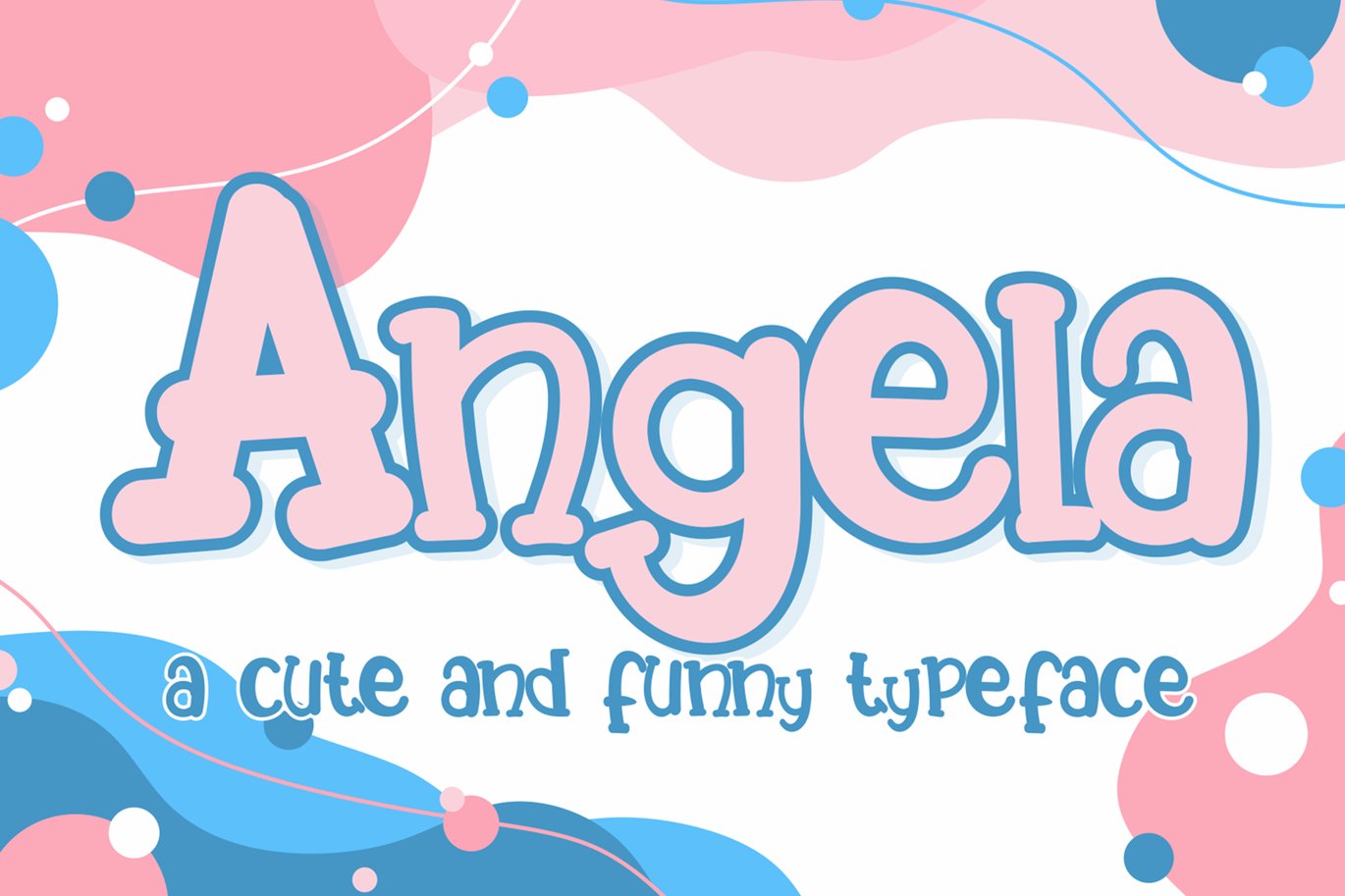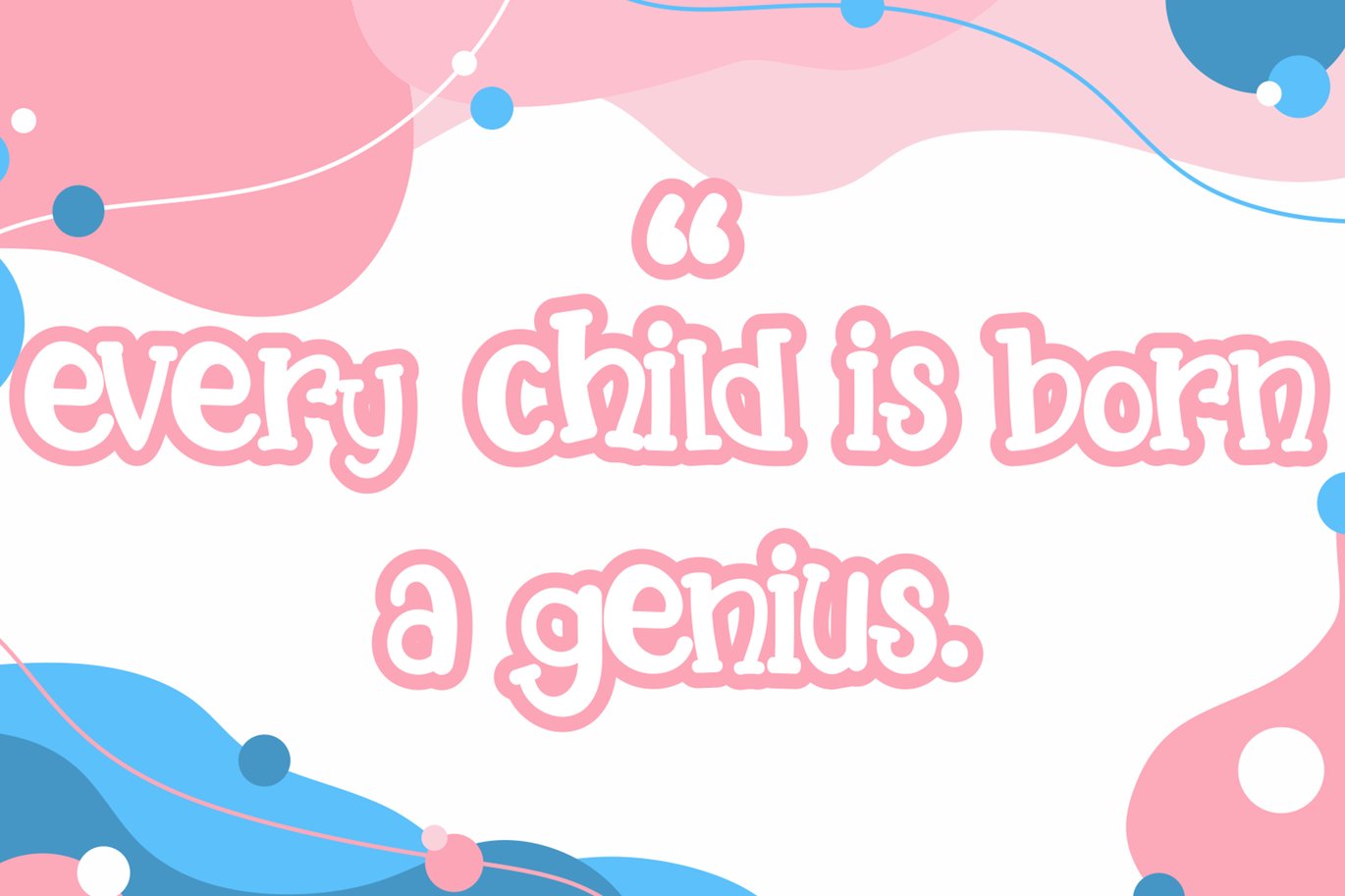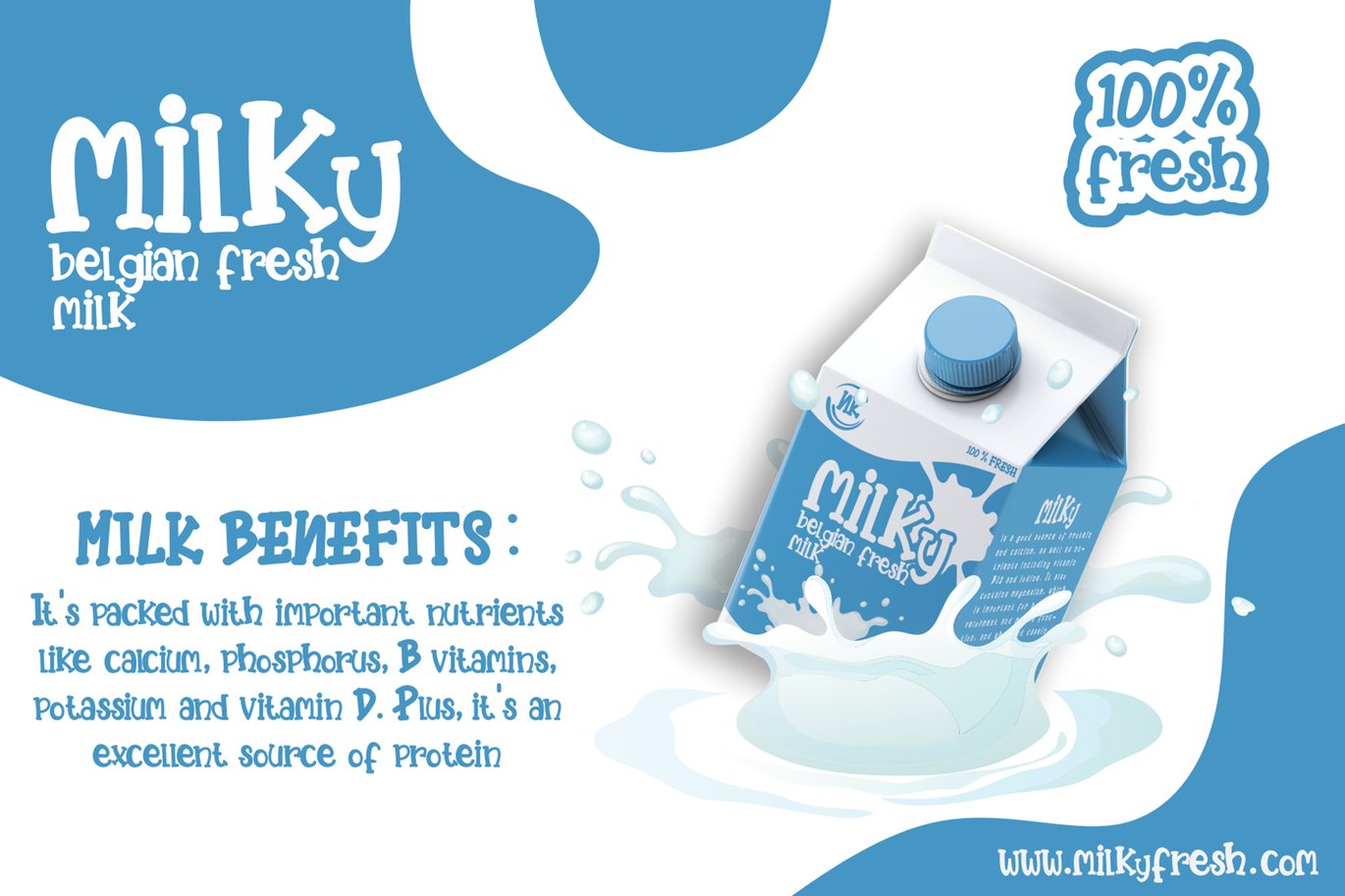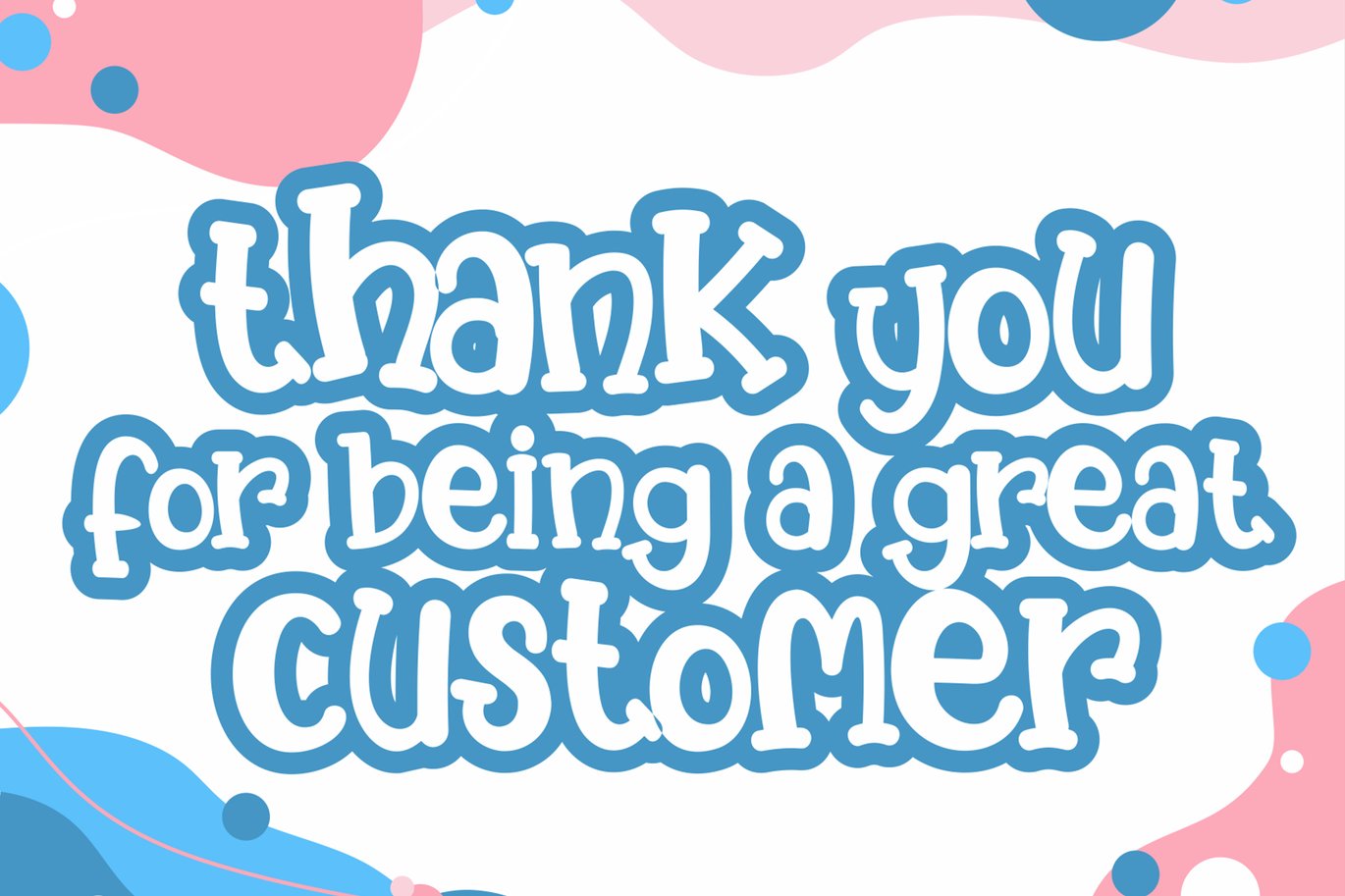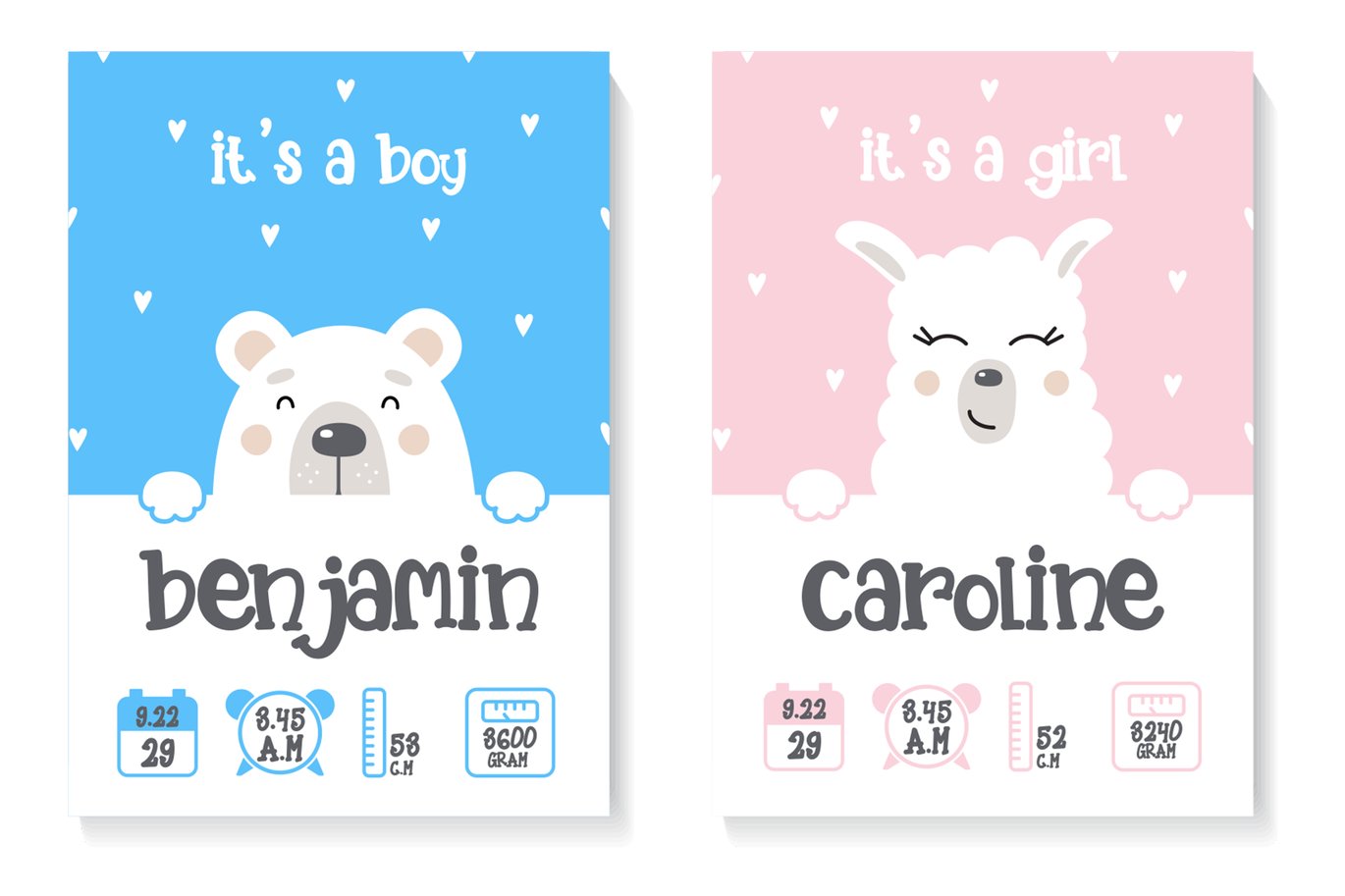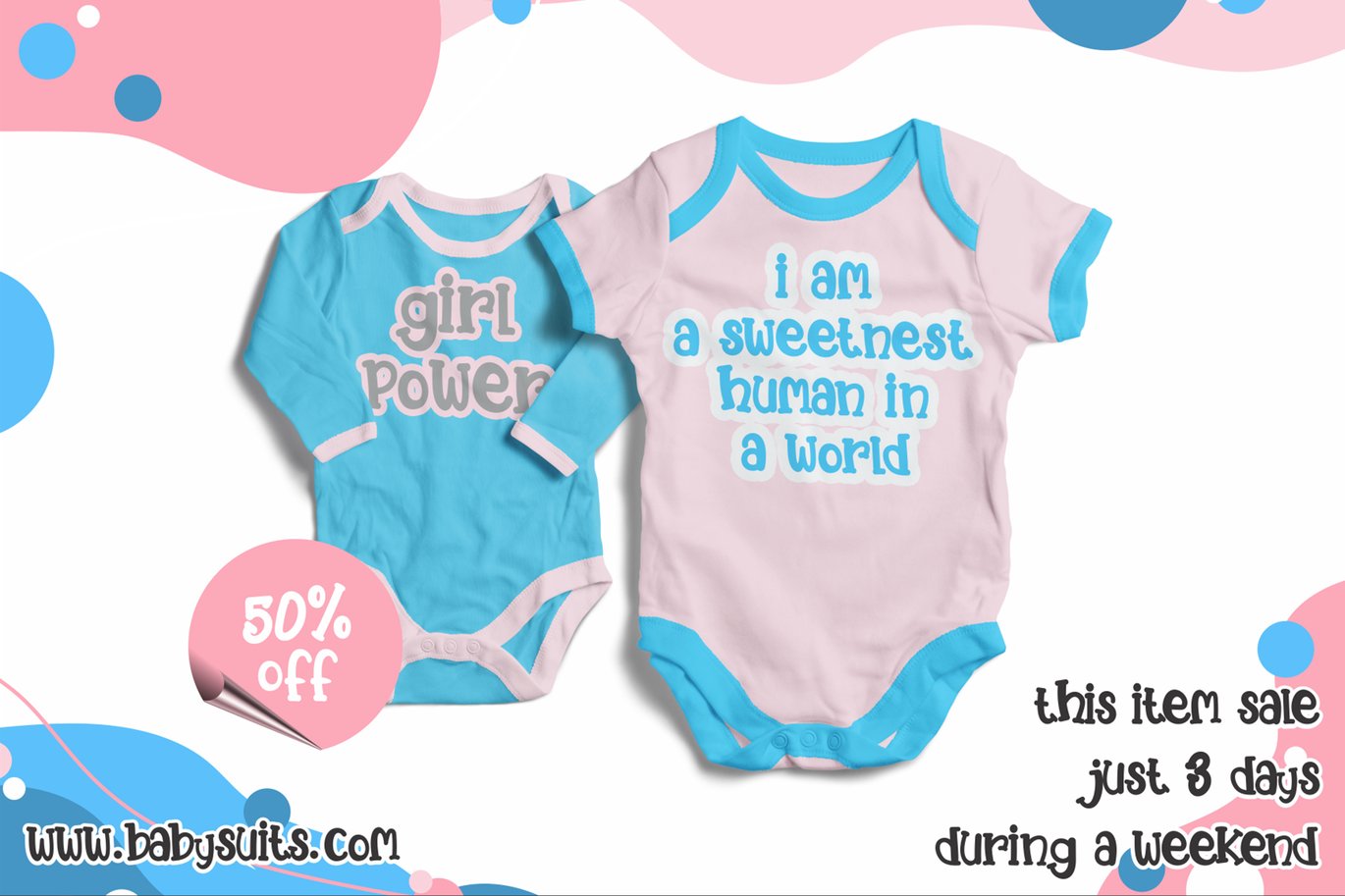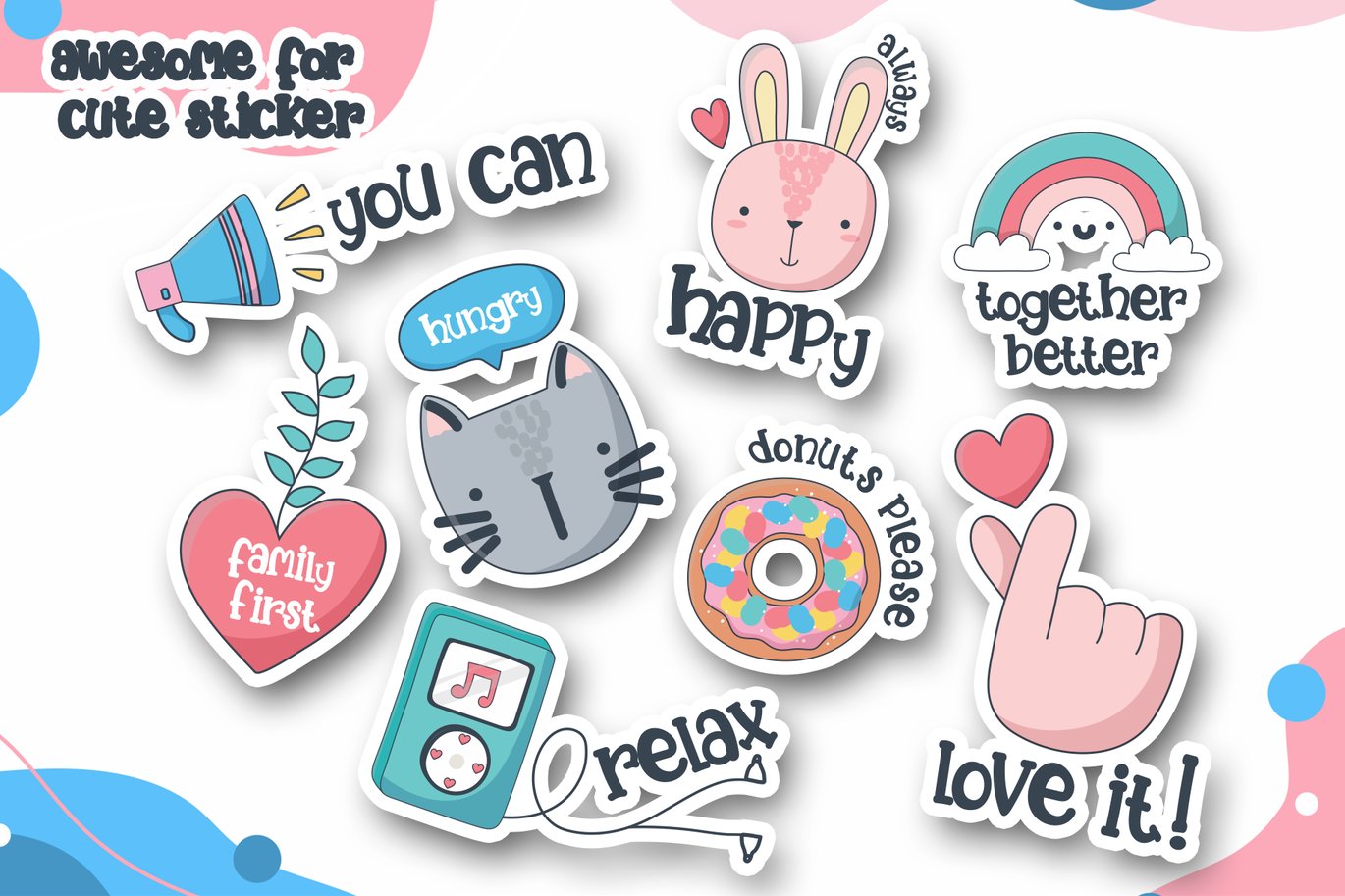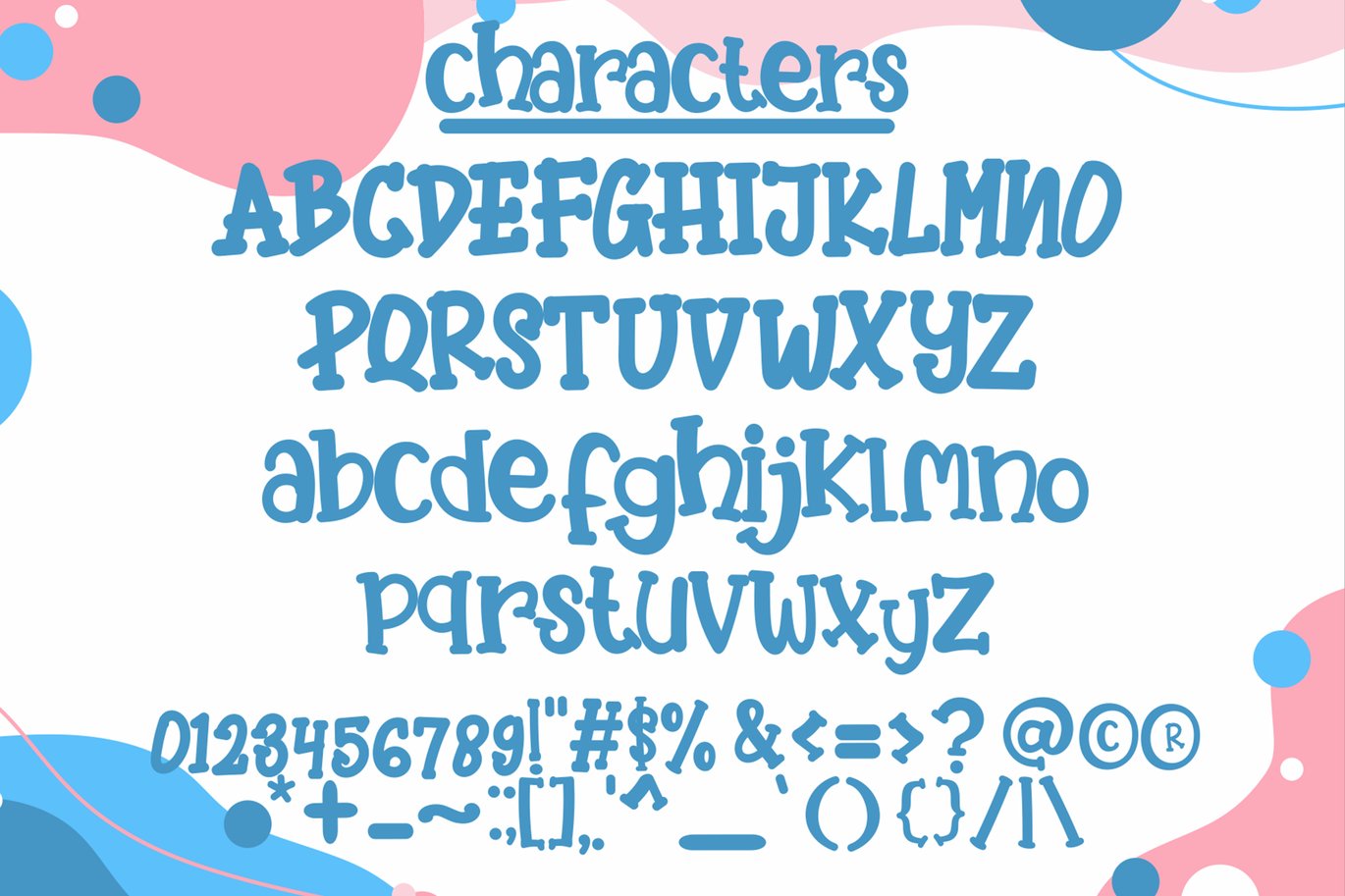
Angela – Cute Font
Angela is a Cute and charming display font with a relaxed theme, featuring a lovely style. No matter the topic, this font is awesome for every kid or child project, this font will be an incredible asset to your fonts’ library, as it has the potential to elevate any creation.